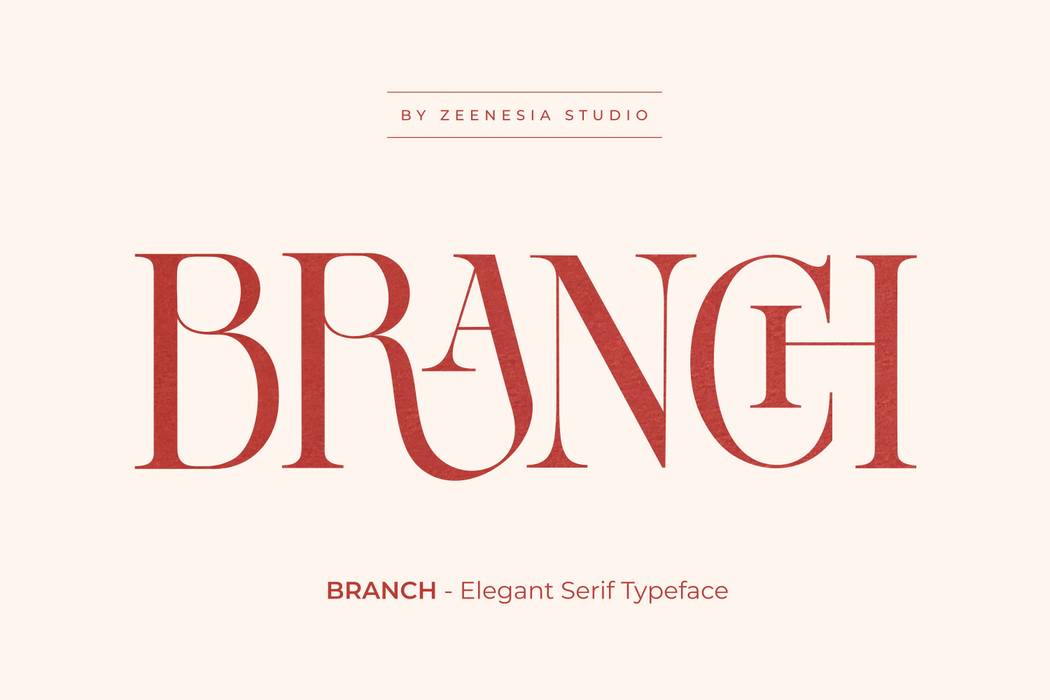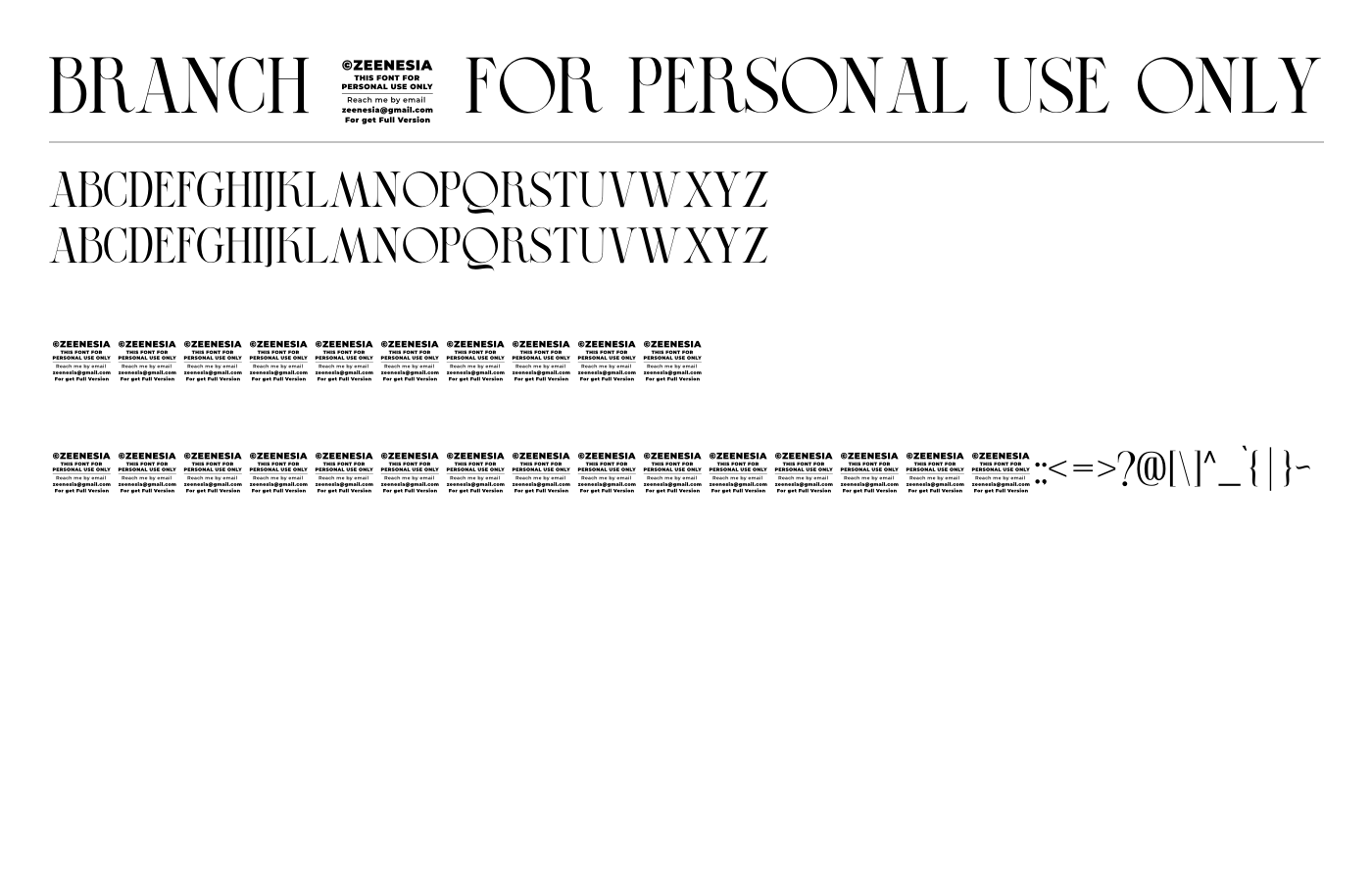
Branch is a tall, elegant serif font with strong Didone characteristics, featuring high contrast between thin and thick strokes and delicate, thin serifs. Its narrow letterforms and refined details give it a sophisticated and modern feel, making it ideal for upscale branding, editorial headlines, and luxury packaging where a classic yet contemporary style is desired. This font works best in large sizes to showcase its fine features and stylish flair.
Branch Font
About Branch Font
| Font family | Branch Font |
| Designer | Zeenesia 2023 |